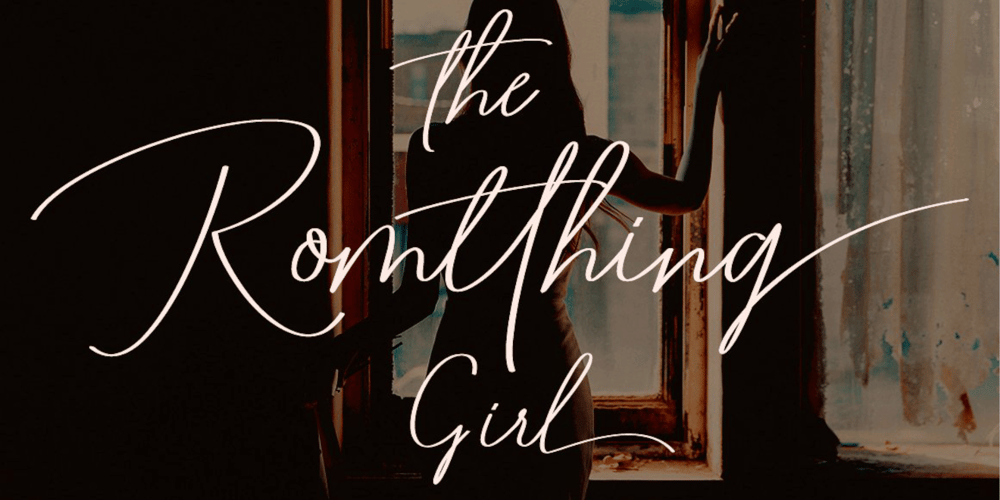
Romtthing
Romtthing font
Romtthing Font Family was designed by Fajri Yandi and published by Doeltype. Romtthing contains 1 styles and family package options. Hi,Introducing The Romtthing Girl is a simple and stylish font, comes with Elegant Variations, opentype features such as stylistic alternates, initial and final form, Romtthing Girl Features 500 glyphs and ligatures. We keep this font looks elegant, classy, readable, stylish, catchy and easy to use. The Romtthing Girl Font is the right choice for photography, signature or signature logo design, quotes, album covers, business cards, and many other design projects. From business cards to photo watermarks, because the Romtthing Girl font is a classy signature with luxury. This is a very charismatic & confident font choice for your various design projects.